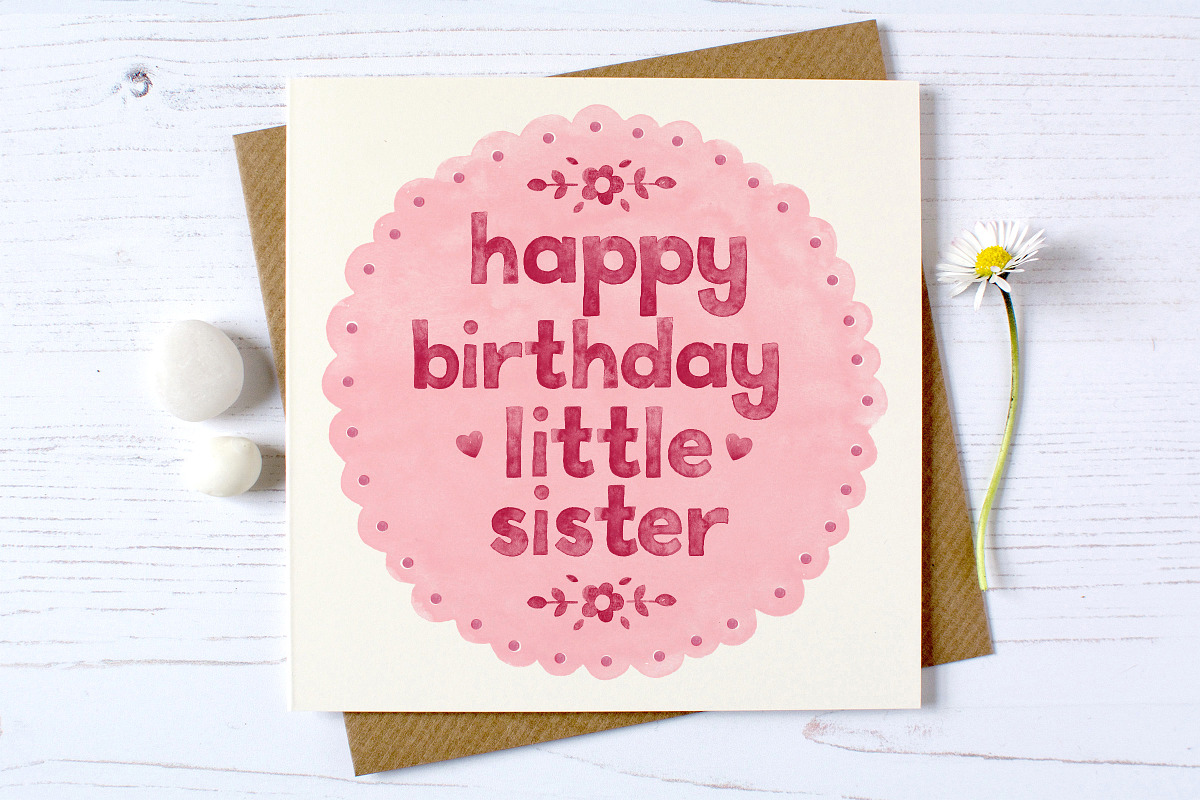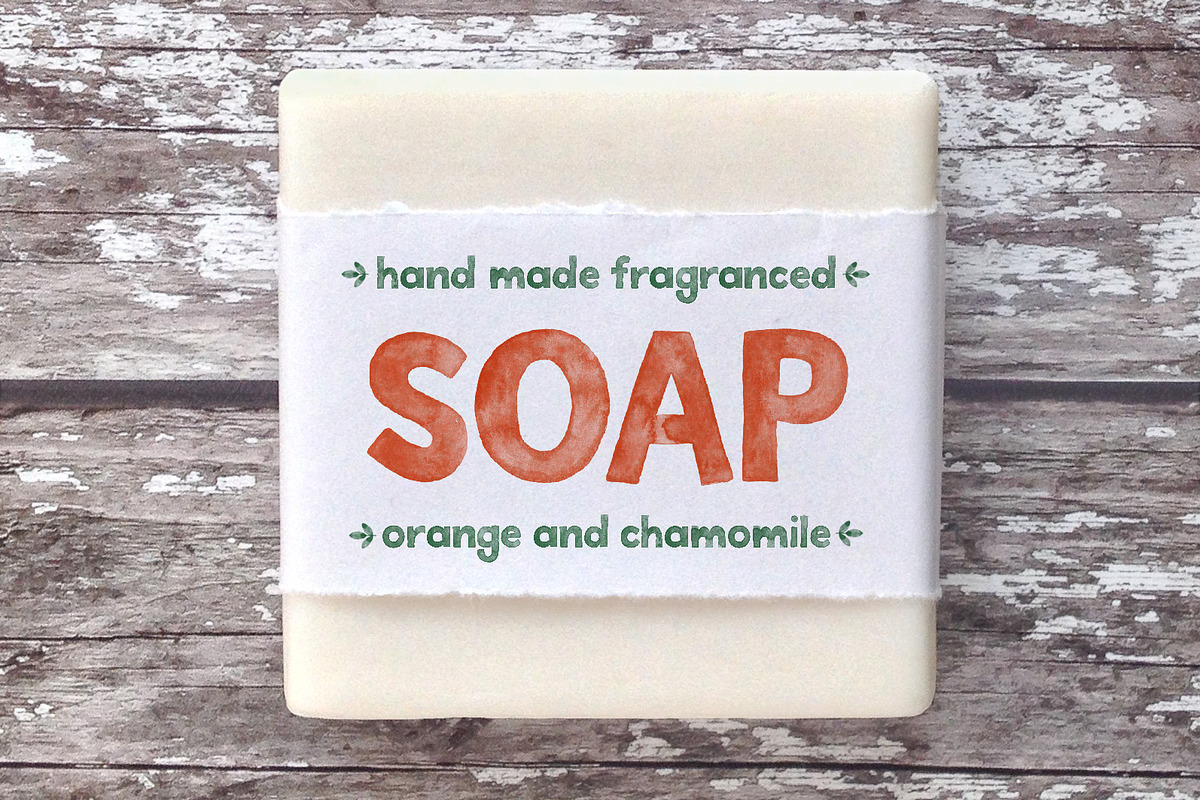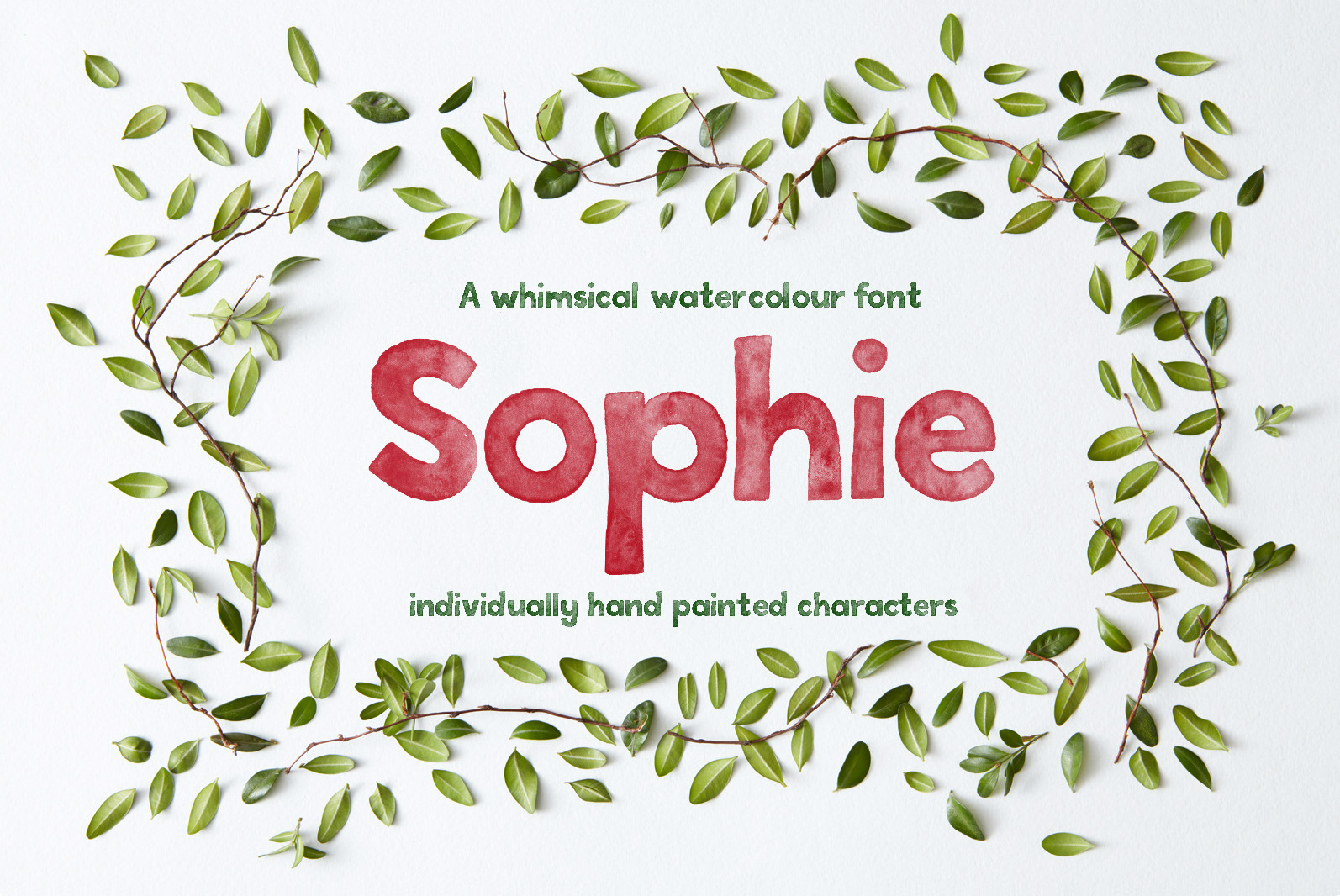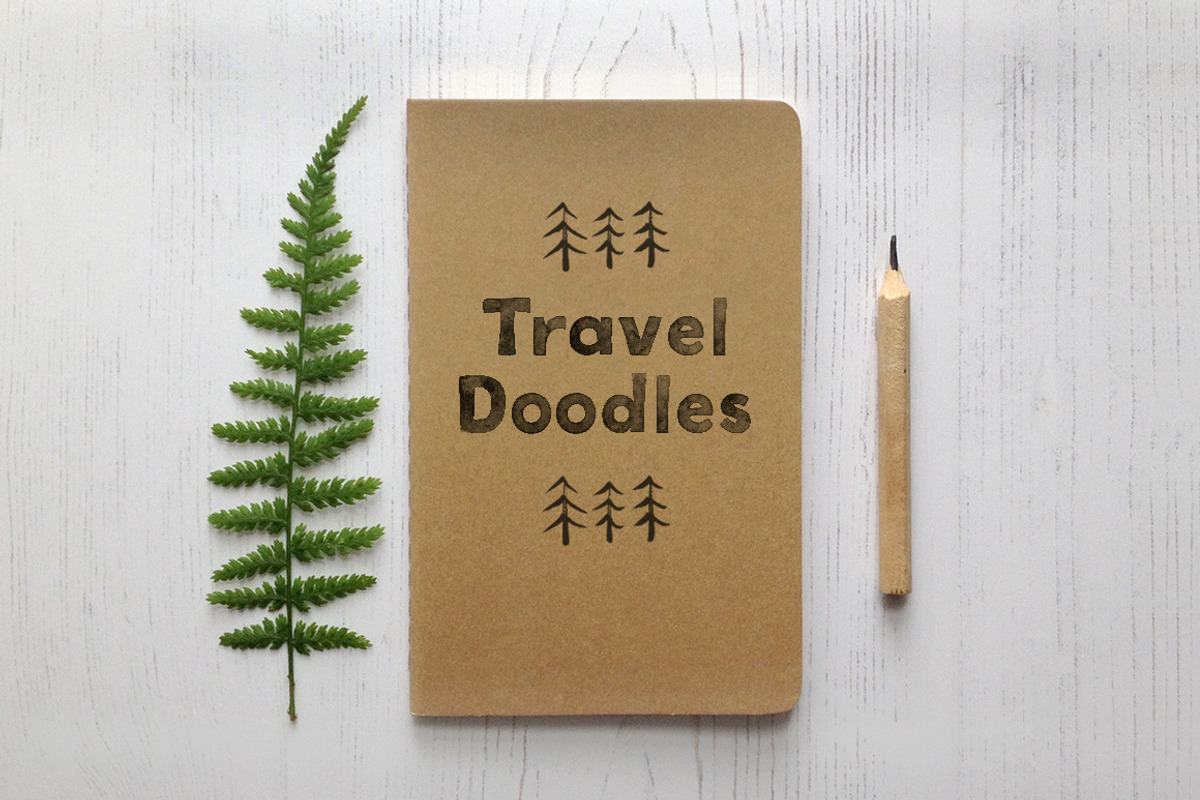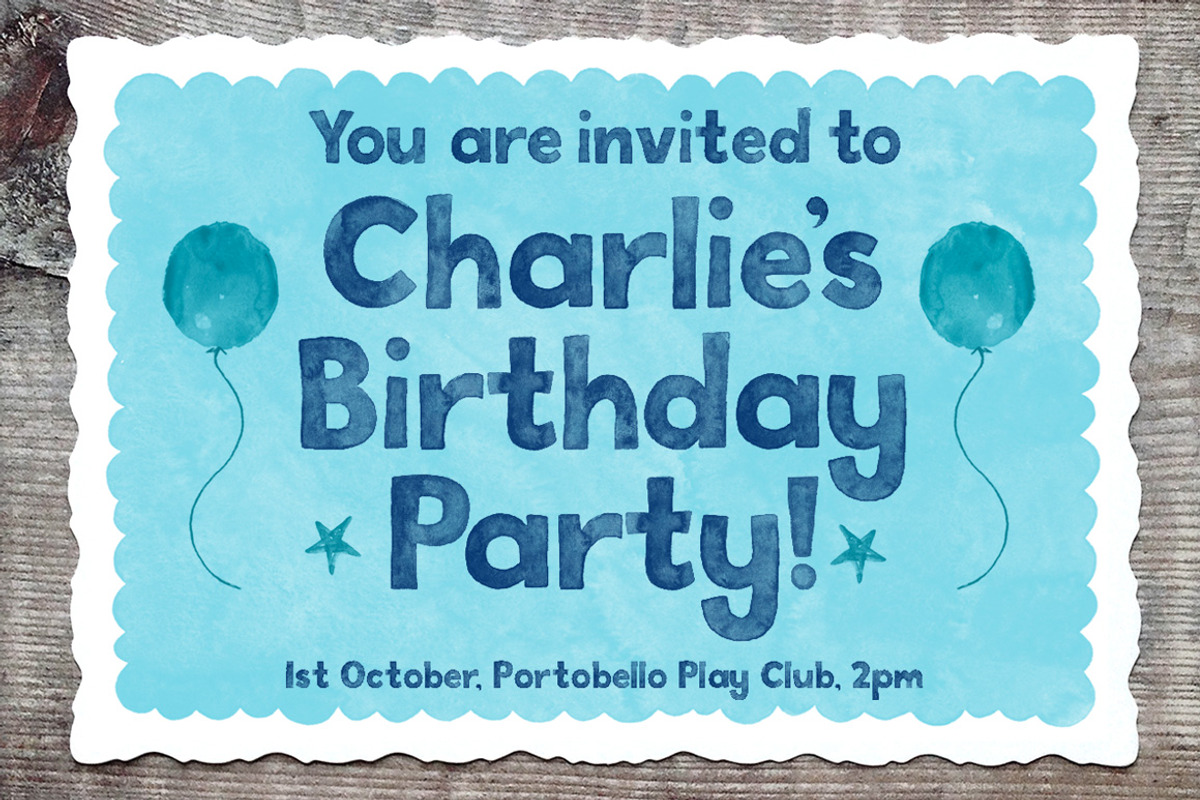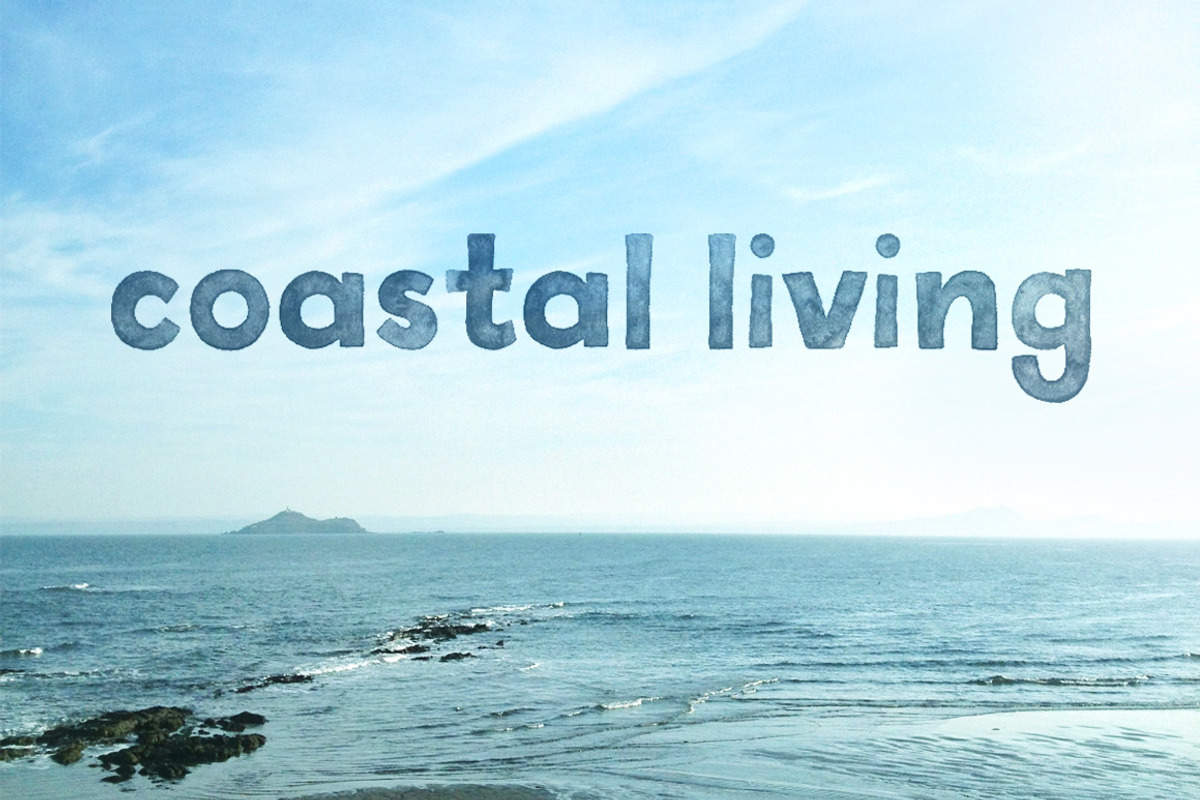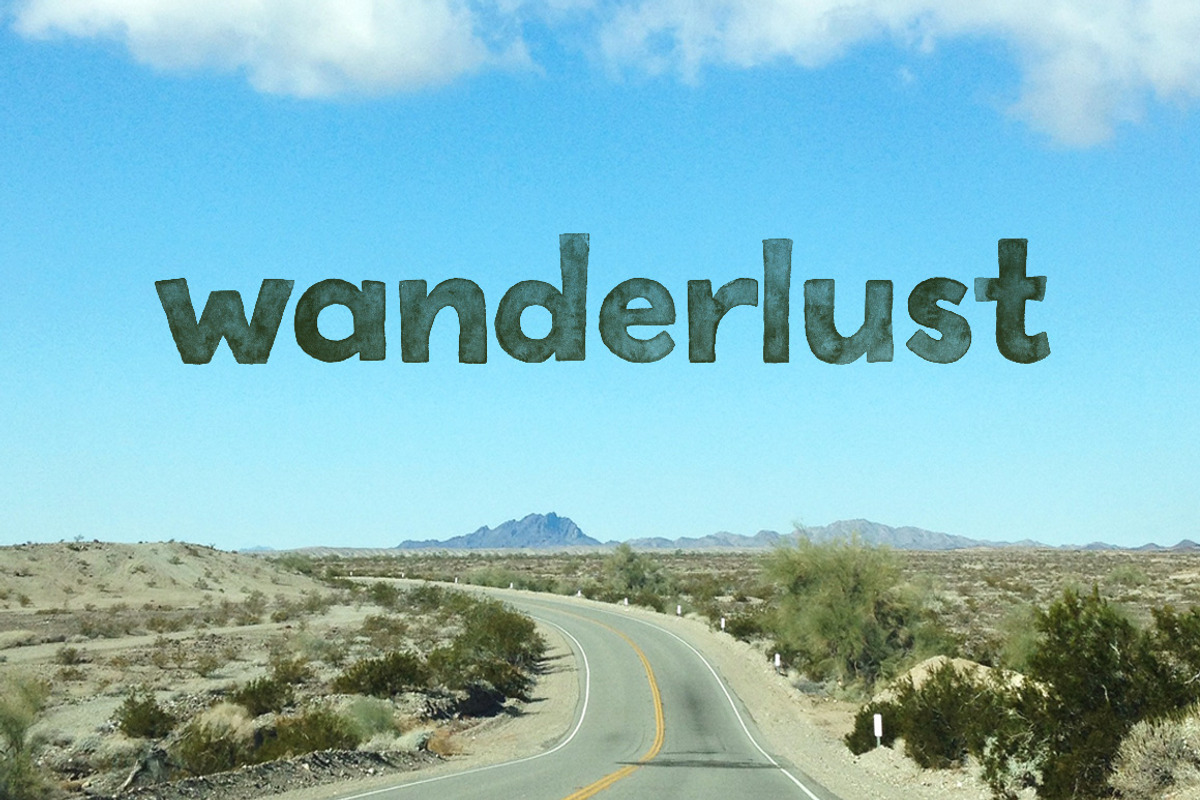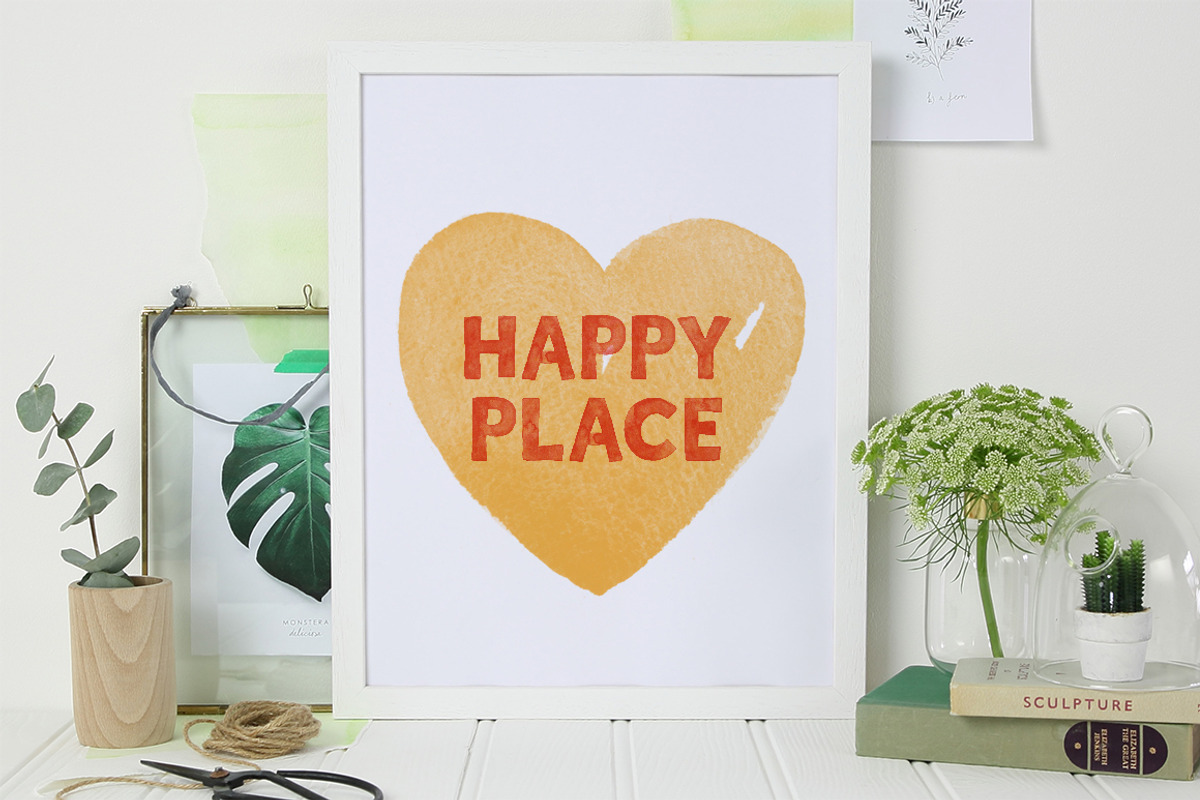
Sophie Watercolour Display Font
A whimsical hand painted watercolour display font, featuring individually hand painted characters with genuine watercolour textures.
Perfect for invitations, brochure and magazine headlines, display banners, packaging, stationery, greetings cards and much more.